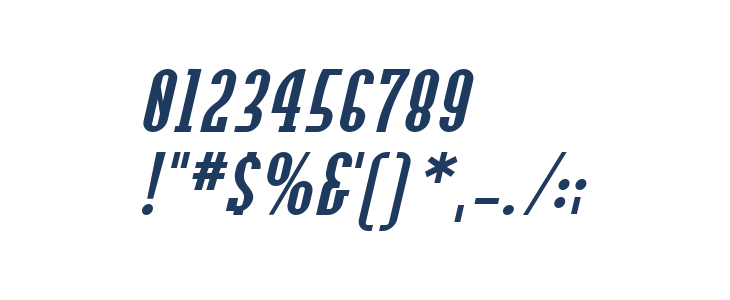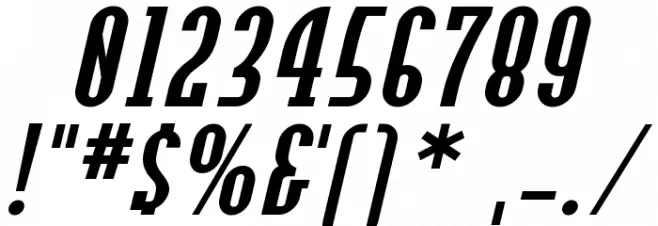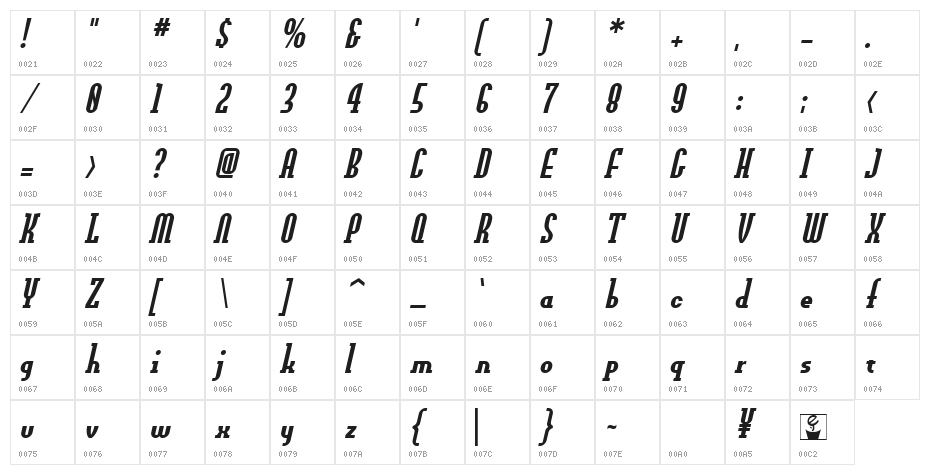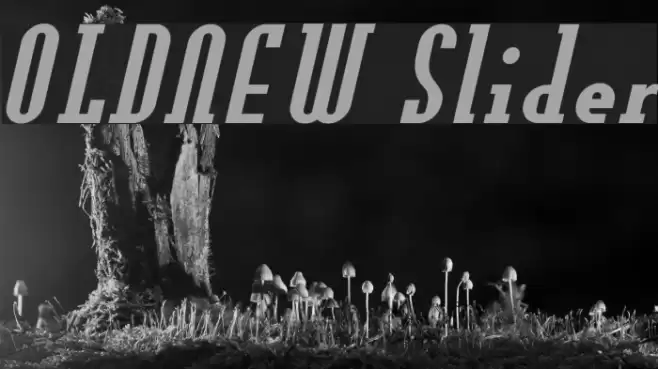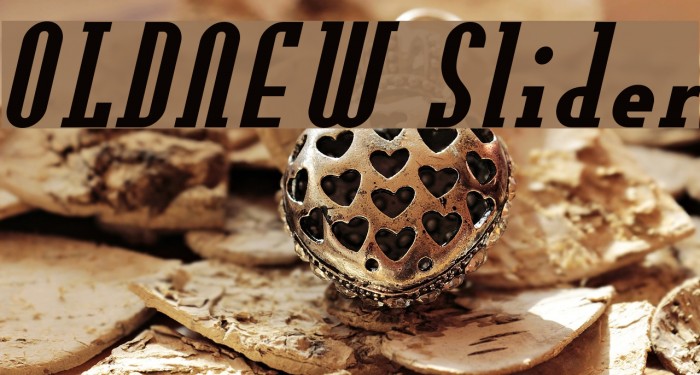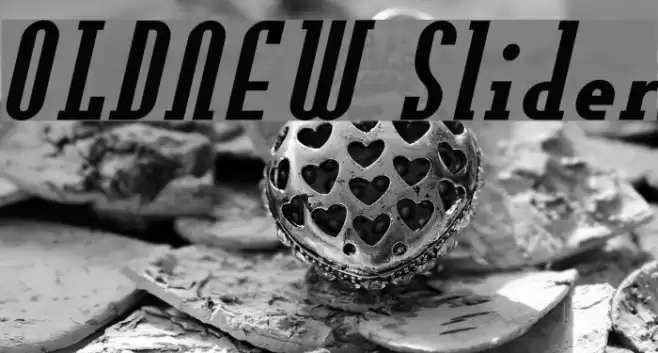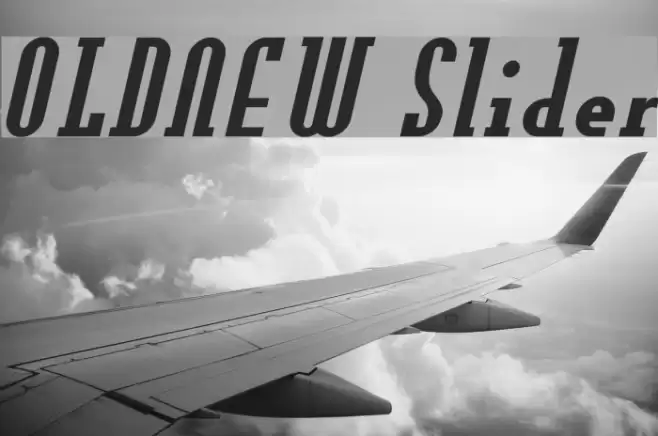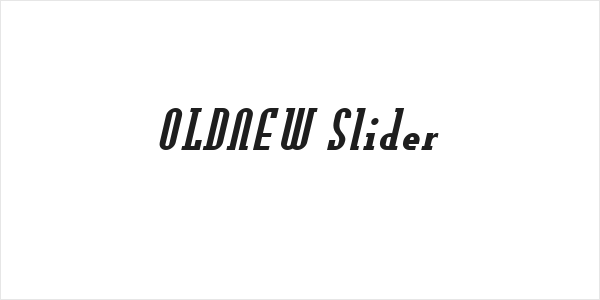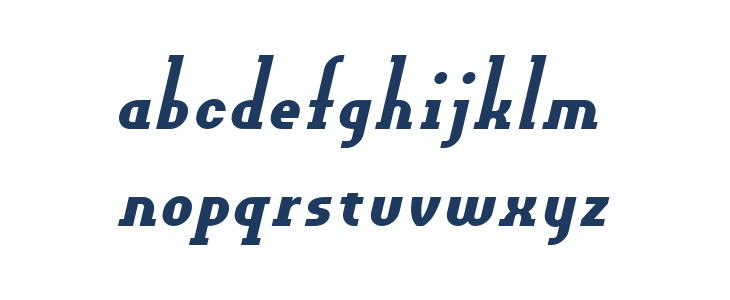
OLDNEW Slider Font
OLDNEW Slider Description
This font features a bold and dynamic style with a strong presence. The characters are slightly condensed, giving it a compact and efficient look. The strokes are thick and consistent, providing a sense of stability and strength. The uppercase letters have a distinctive flair with subtle curves, while the lowercase letters maintain a more straightforward appearance. The numerals are bold and easily readable, making them suitable for various applications. The special characters are well-integrated, maintaining the overall aesthetic of the font. This font's unique style makes it stand out, perfect for projects that require a bold statement.